30 Best Monoline Script Fonts for Effortless Design Elegance
Finding the perfect typography can feel completely overwhelming when you are staring at a blank canvas. That is exactly why I’ve curated this personal list of my favorite typography assets. In this post, I am sharing 30 stunning options to help you choose the ideal monoline script font for your next creative project, ensuring your layouts look both professional and deeply inspiring.
1. Zolfiq Monoline Script Font
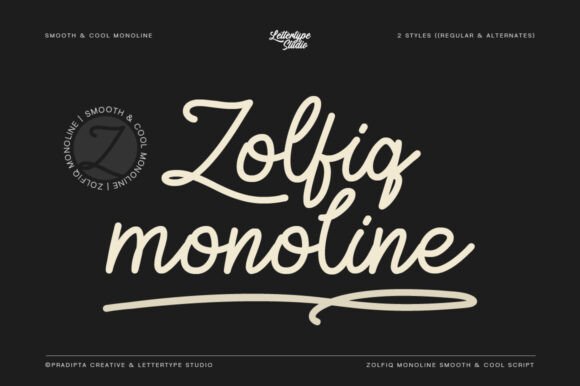
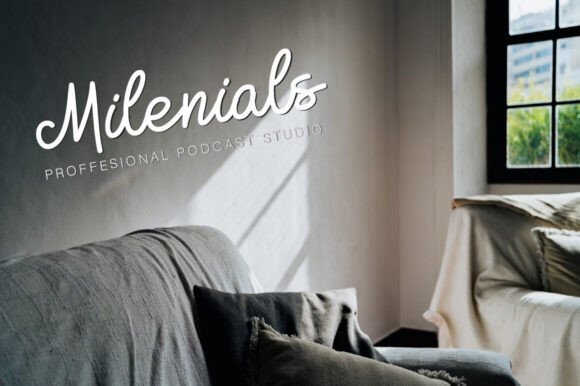
Lately, I’ve been completely captivated by typefaces that effortlessly marry classic elegance with clean, modern geometry. That’s exactly why Zolfiq Monoline Script Font has taken over my recent mood boards. This gorgeous monoline script font delivers a stunningly sophisticated aesthetic, defined by its signature consistent line thickness. This absolute uniformity strips away the visual noise of traditional calligraphy, giving your projects a uniquely sleek and contemporary vibe. As a designer, I find myself constantly reaching for it when crafting logos and branding that need a personal, handcrafted touch without losing an ounce of professionalism. It’s also incredibly versatile, floating gracefully from high-end wedding invitations to eye-catching digital media graphics. Its mesmerizing rhythm and crisp legibility make it a total joy to design with.
2. Loverboys Monoline Script Font
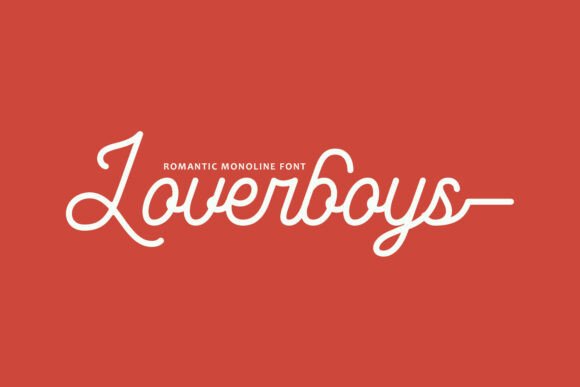
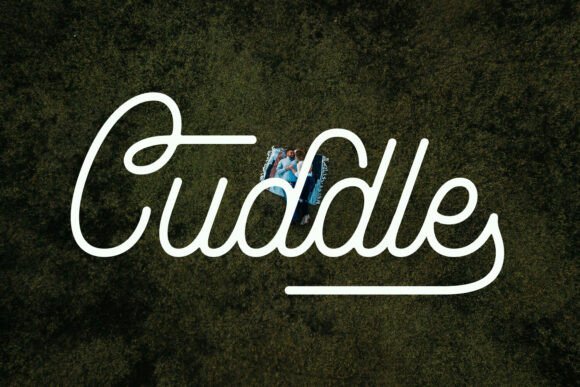
When a project demands a deeply emotional connection, choosing the right typeface becomes everything. Lately, the Loverboys Monoline Script Font has been my absolute secret weapon for injecting pure romance into my layouts. This exquisite monoline script font beautifully captures the essence of love, elegance, and effortless simplicity. What I love most as a designer is how its fluid, continuous strokes maintain a completely consistent line thickness, creating an incredibly smooth and harmonious rhythm across the page. It’s the ultimate choice when you need to evoke genuine intimacy and sophistication, making it perfect for custom wedding invitations, romantic quotes, elegant branding, or personalized gifts. The minimal and graceful architecture of this script keeps it incredibly versatile, working like a charm for both ultra-modern branding and classic aesthetics.
3. Pretty Jessy Monoline Script Font
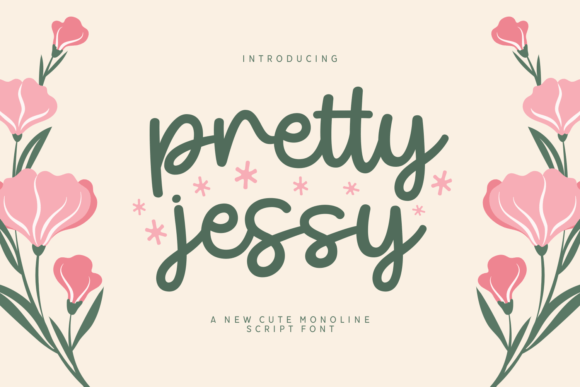
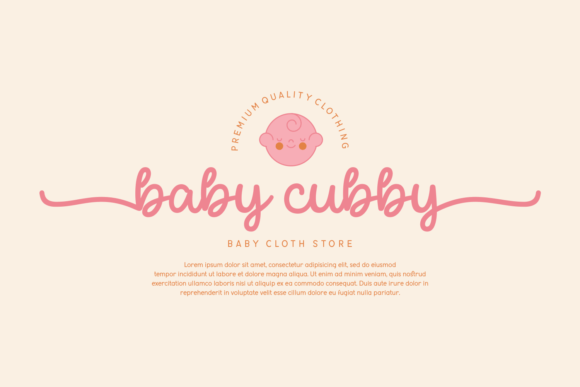
Every once in a while, a typeface comes along that instantly softens a layout and adds a beautifully human touch to your canvas. That’s exactly what happened when I first tested the Pretty Jessy Monoline Script Font. This incredibly cute monoline script font acts as a true masterclass in balancing minimalist simplicity with organic elegance. What makes it a staple in my creative toolkit is its delightfully sweet, approachable nature, helping it stand out effortlessly on custom logos, product labels, and vibrant promotional materials. It carries a modern yet timeless essence that naturally communicates a deep sense of love and care, making it my ultimate recommendation for branding baby products or cozy lifestyle lines. Its graceful lines deliver a clean, flawless architecture that brings an incredibly versatile charm to any project you create.
4. Cluster Heritage Monoline Script Font
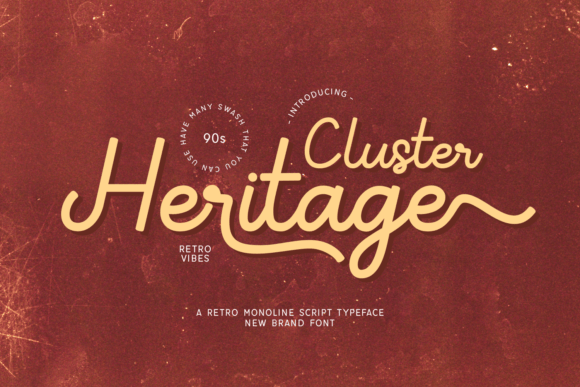
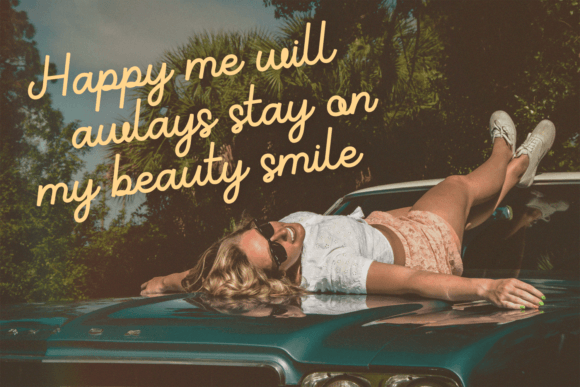
Lately, I’ve been feeling incredibly nostalgic, watching vintage aesthetics make a massive, beautiful comeback across my design feed. That exact craving for soulful nostalgia is what drew me straight to the Cluster Heritage Monoline Script Font. This stunning monoline script font acts as a gorgeous time machine, effortlessly blending a retro 90s look with modern minimalist refinement. As a designer, I am absolutely mesmerized by its delicate, flowing letterforms, which create a beautiful sense of fluidity and grace across any canvas. It’s the ultimate choice for projects that demand a subtle touch of class and timeless character. Whether I’m mocking up high-end event invitations or building a sleek lifestyle brand identity, its uniform line weight keeps everything looking incredibly clean and intentional. It’s a versatile masterpiece that anchors any classic or contemporary project.
5. Brigotan Monoline Script Font
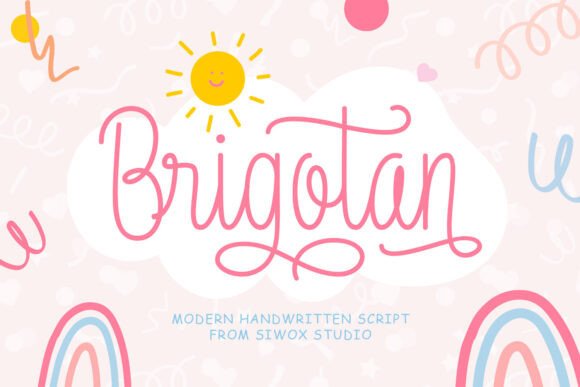
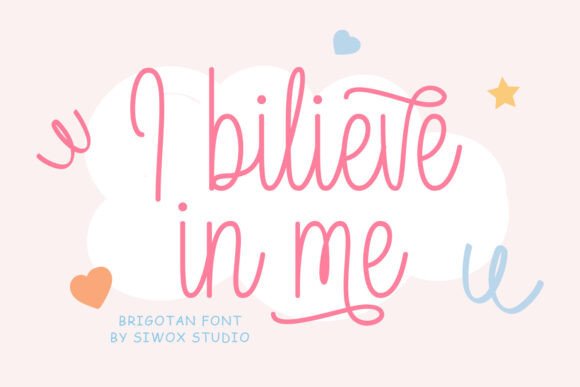
There’s something incredibly magical about discovering a typeface that instantly radiates pure joy and warmth the second you type out a single word. That is exactly why Brigotan Monoline Script Font has been on heavy rotation in my studio lately. This remarkably cute monoline script font masterfully balances childlike simplicity with an innate graphic elegance, ensuring your text stands out beautifully on logos, custom packaging labels, and whimsical promotional materials. What strikes me most as a designer is its modern yet completely timeless feel; it effortlessly conveys a profound sense of love, tenderness, and gentle care. This makes it an absolute dream choice for creative entrepreneurs building brands centered around baby products, kids’ decor, or playful lifestyle goods. Its uniform line weight keeps the layout clean, approachable, and filled with undeniable charm.
6. Mackony Monoline Script Font
If you want to give your layouts a sophisticated, cinematic edge, you will love the Mackony Monoline Script Font. This lovely monoline script font stands out because of its delicate, flowing letterforms that bring instant grace to a blank canvas. The main advantage here is its geometric consistency; the uniform line weight creates a clean, minimalist style that feels organized without looking rigid. It effortlessly delivers a rare blend of modern simplicity and high-end refinement.
I highly recommend using this versatile script for projects needing a timeless, premium touch. It works brilliantly for luxury product labels, editorial headers, or invitations. For a striking composition, try pairing its smooth, continuous loops with a bold, clean sans-serif—this high-contrast interplay creates a beautiful visual harmony that instantly elevates your entire brand aesthetic.
7. Asyila Endah Monoline Script Font
Finding a script that feels genuinely authentic can be tough, but the Asyila Endah Monoline Script Font completely blew me away this week. This flowing handwritten gem effortlessly stands out thanks to its distinct, timeless style and elegant touch. The main advantage of this gorgeous monoline script font is its incredibly natural character connection, which mimics real handwriting with a perfectly uniform line weight. It adds an instant layer of creative luxury to your work without ever feeling heavy or overdone.
As a designer, I highly recommend using this typeface for spectacular projects that need a personal touch, like premium branding or custom packaging. For the best visual impact, pair its fluid curves with a sharp, minimalist geometric sans-serif text. This beautiful contrast makes the delicate script pop, instantly elevating your composition into something memorable.
Conclusion